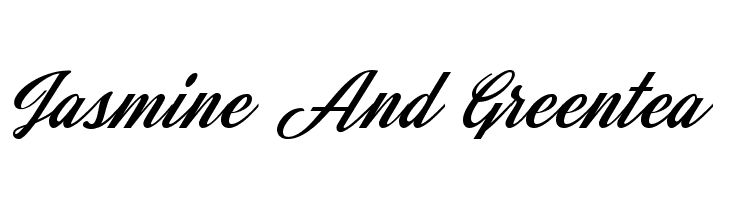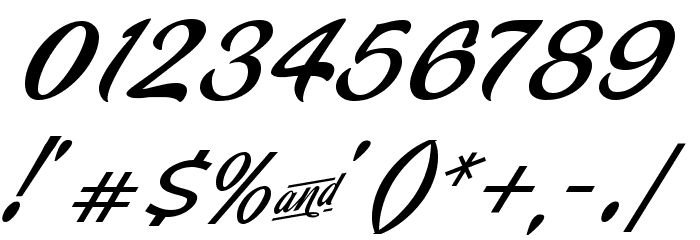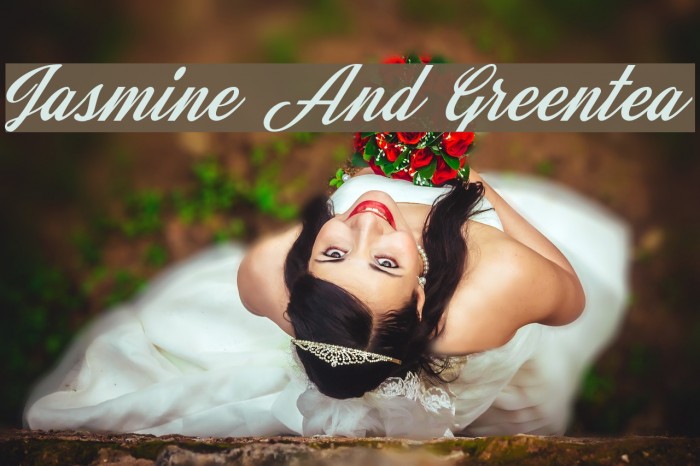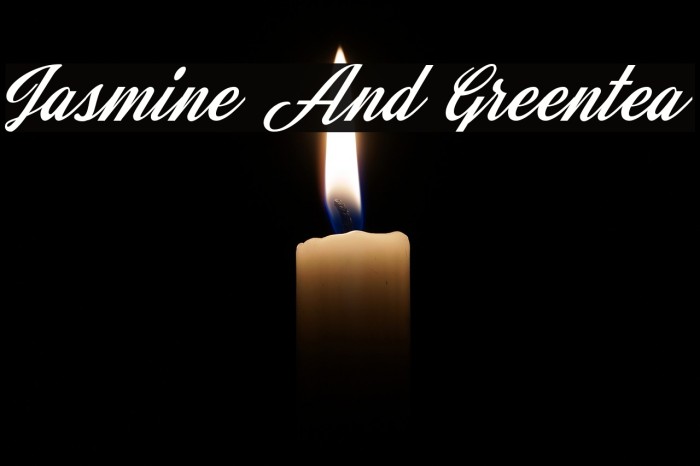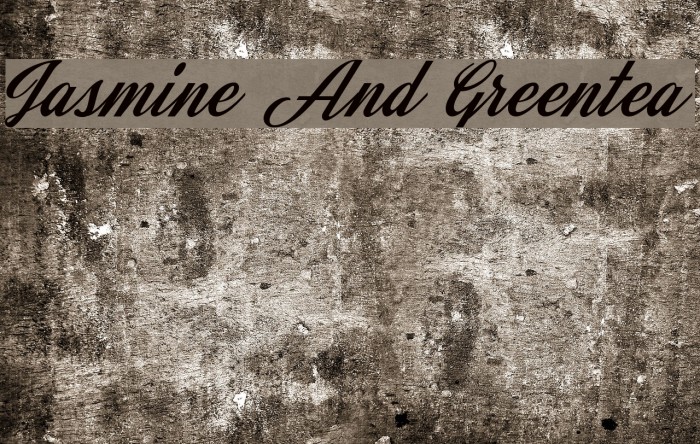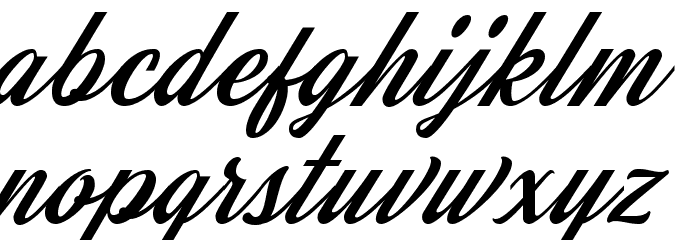
Jasmine And Greentea Font
Jasmine And Greentea Description
This elegant script font features a flowing, cursive style with a sophisticated flair. The uppercase letters are bold and sweeping, with intricate loops and flourishes that add a touch of drama. The lowercase letters maintain a consistent slant, creating a harmonious flow that is both graceful and dynamic. The numbers are equally stylish, with a slight slant that complements the overall design. Special characters are thoughtfully integrated, maintaining the font's cohesive aesthetic. This font exudes a sense of elegance and refinement, making it suitable for projects that require a touch of class and sophistication.
A bold, elegant script font with flowing, cursive characters from Uncategorized fonts.
- Proposed Projects: Ideal for wedding invitations, luxury branding, elegant stationery, and high-end packaging.
- Overall Style: Elegant
- Use Case: Logos, Invitations, Branding